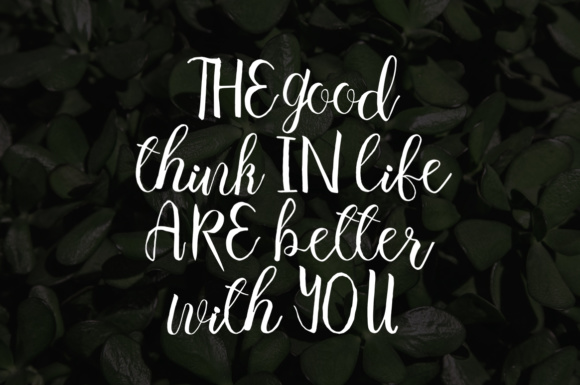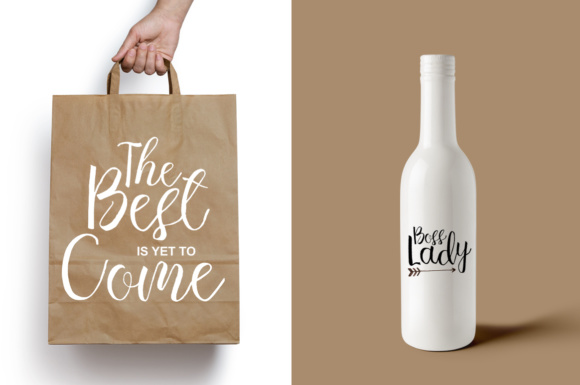
Wonderful Script Font
About Wonderful Script Font
Wonderful is truly a namesake font! This hand-brushed font looks great when you alternate between lowercase and uppercase characters for a whimsical appeal, and can add a rustic charm to your special event print projects.